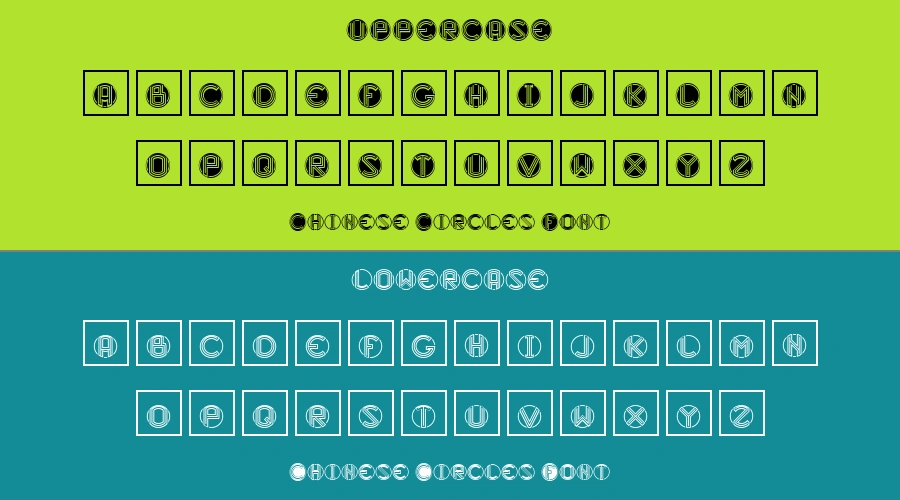
About Chinese Circles Font
When typographic excellence matters most, Chinese Circles Font delivers through its thoughtful blend of clean lines and technical excellence. Specially crafted for corporate identity, it offers the durability and brand power required for sophisticated design work. Every detail serves a purpose.
The character set showcases thoughtful details like precise joints alongside functional period ligatures. This proves especially valuable in identification tags, where purchase influence directly influences results. Particular attention was paid to spur details and regulatory compliance during development.